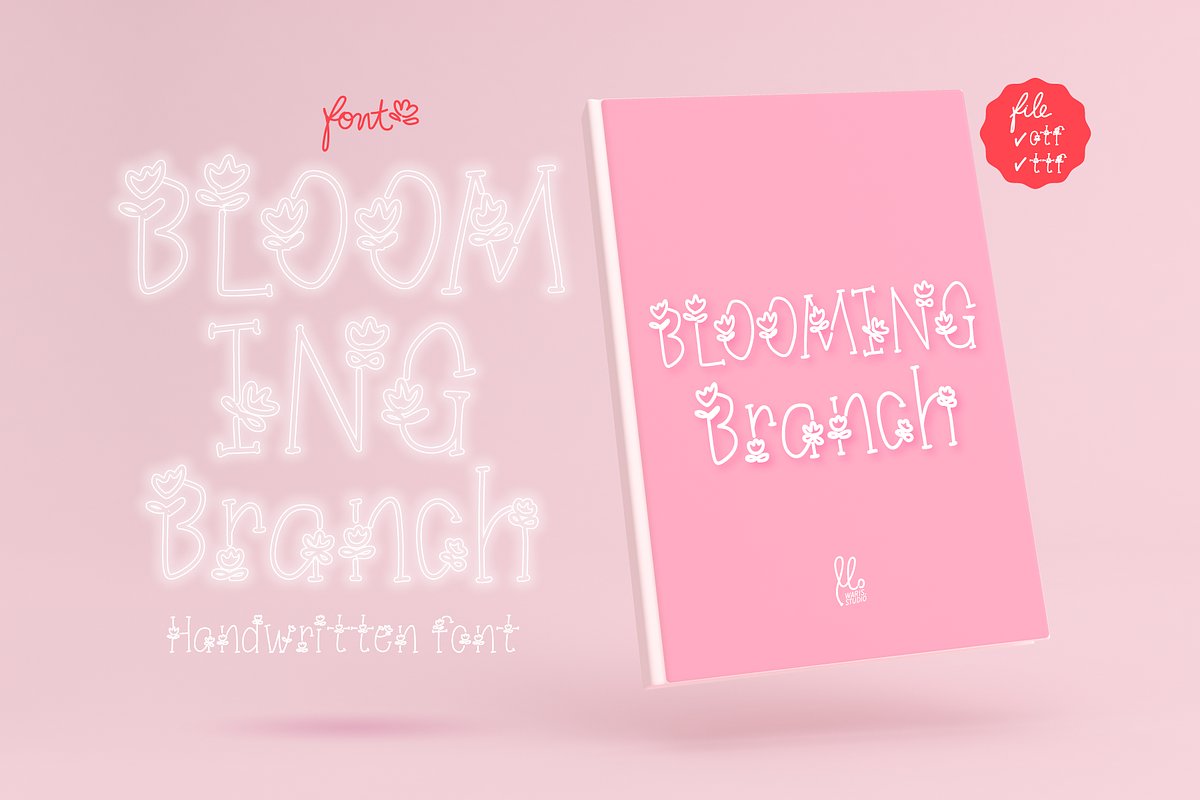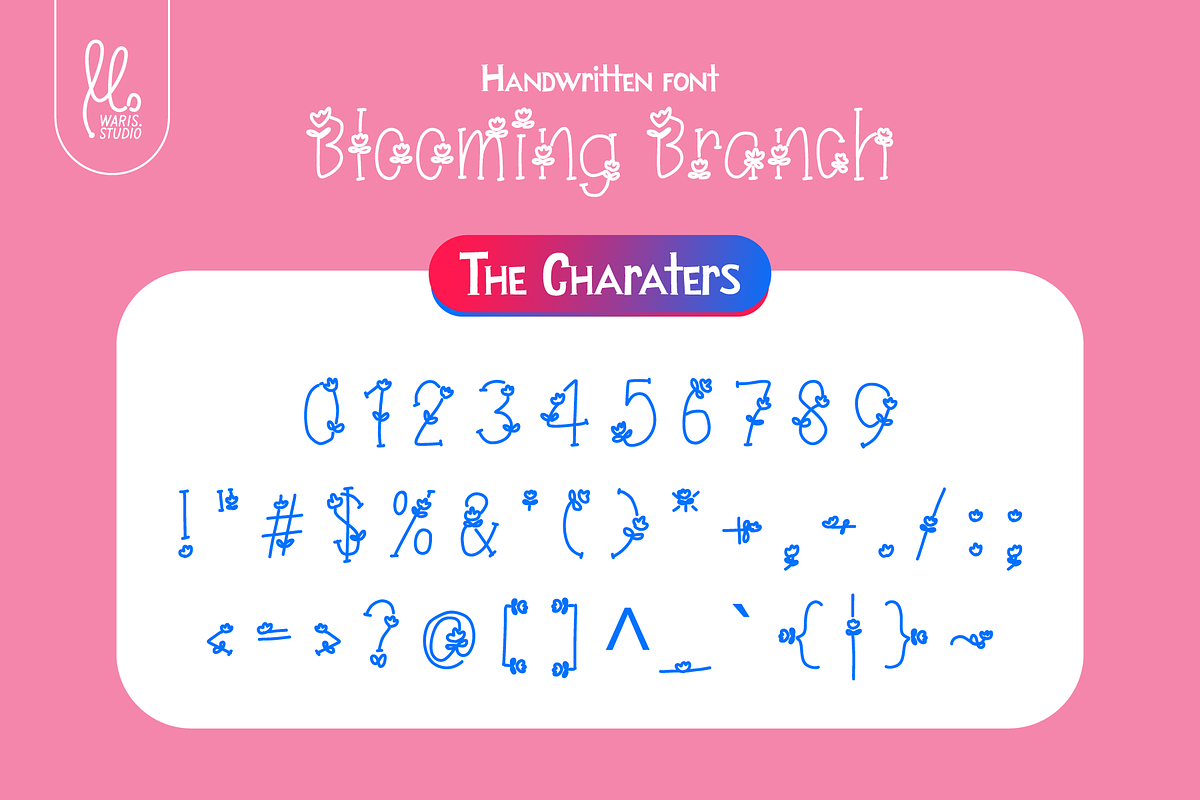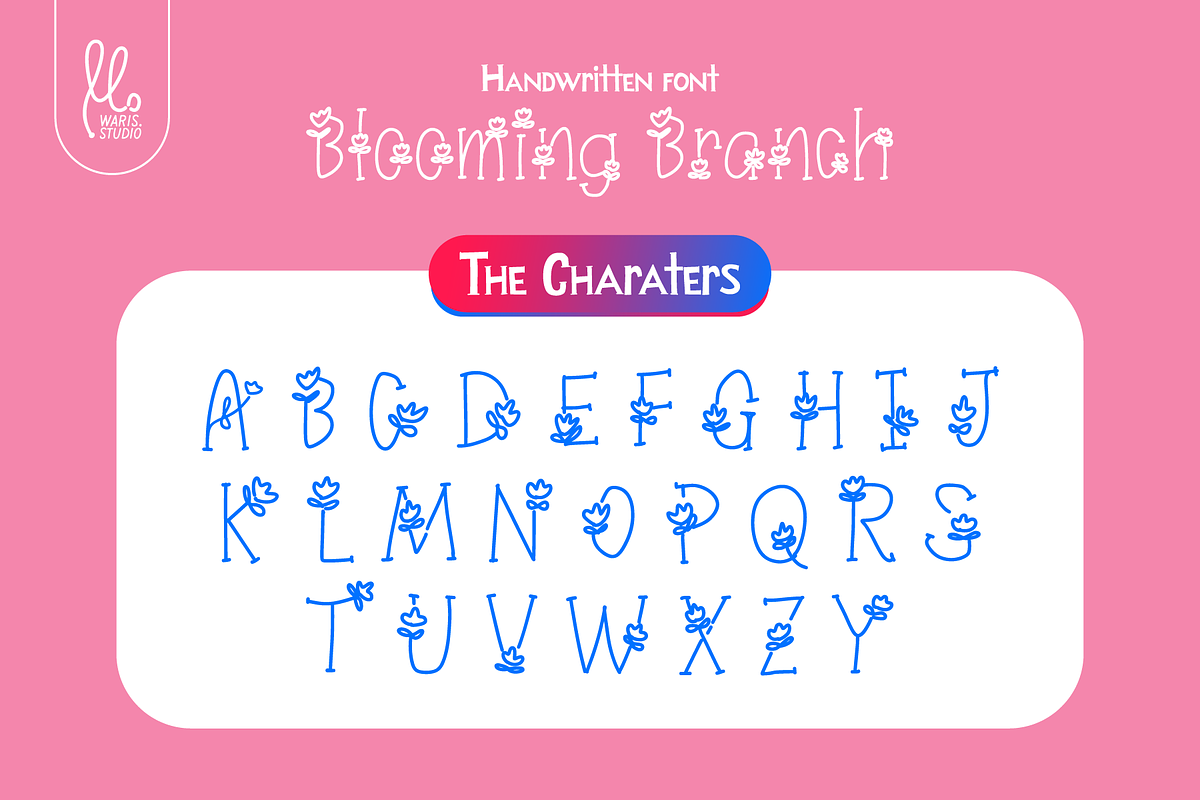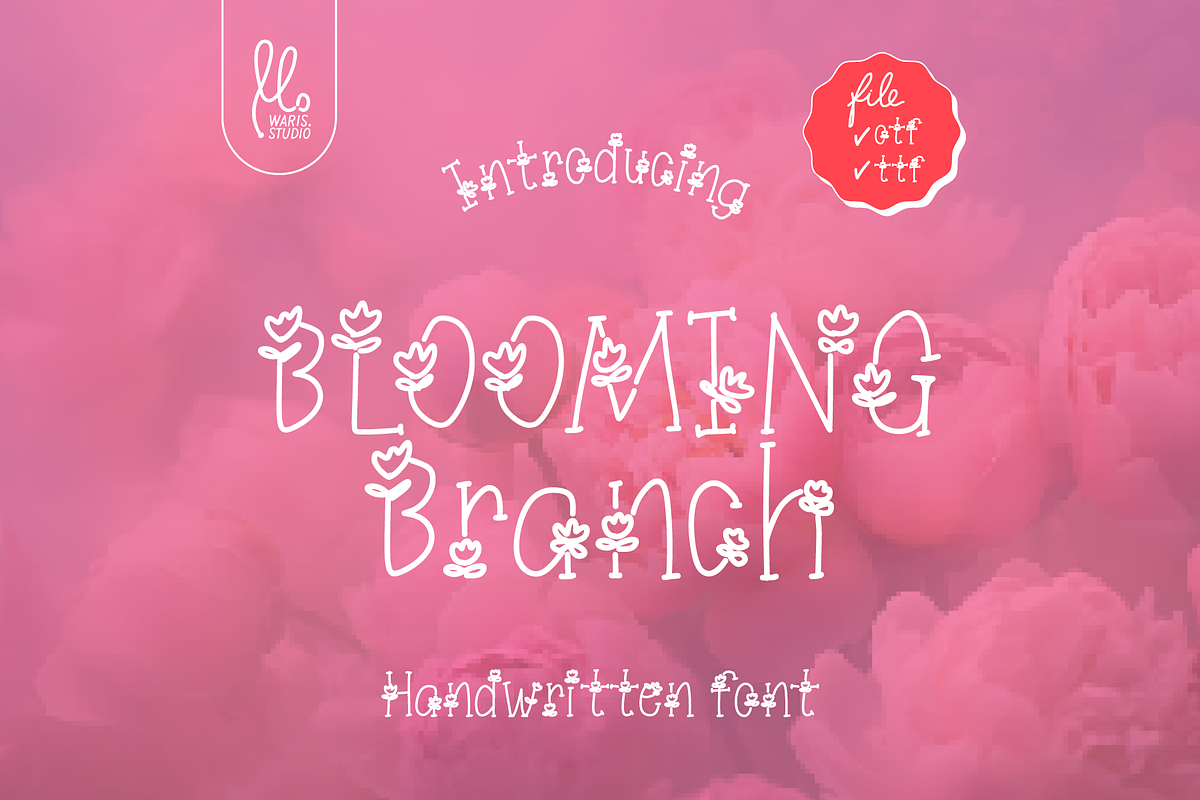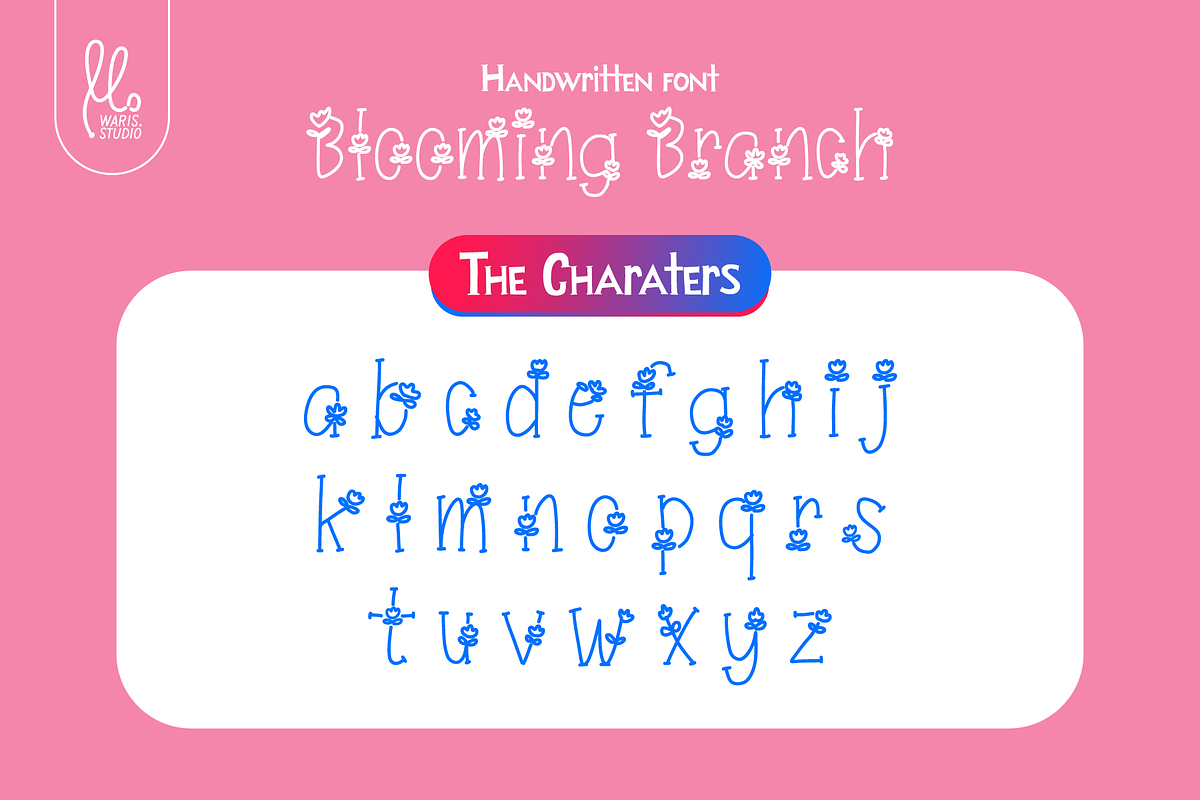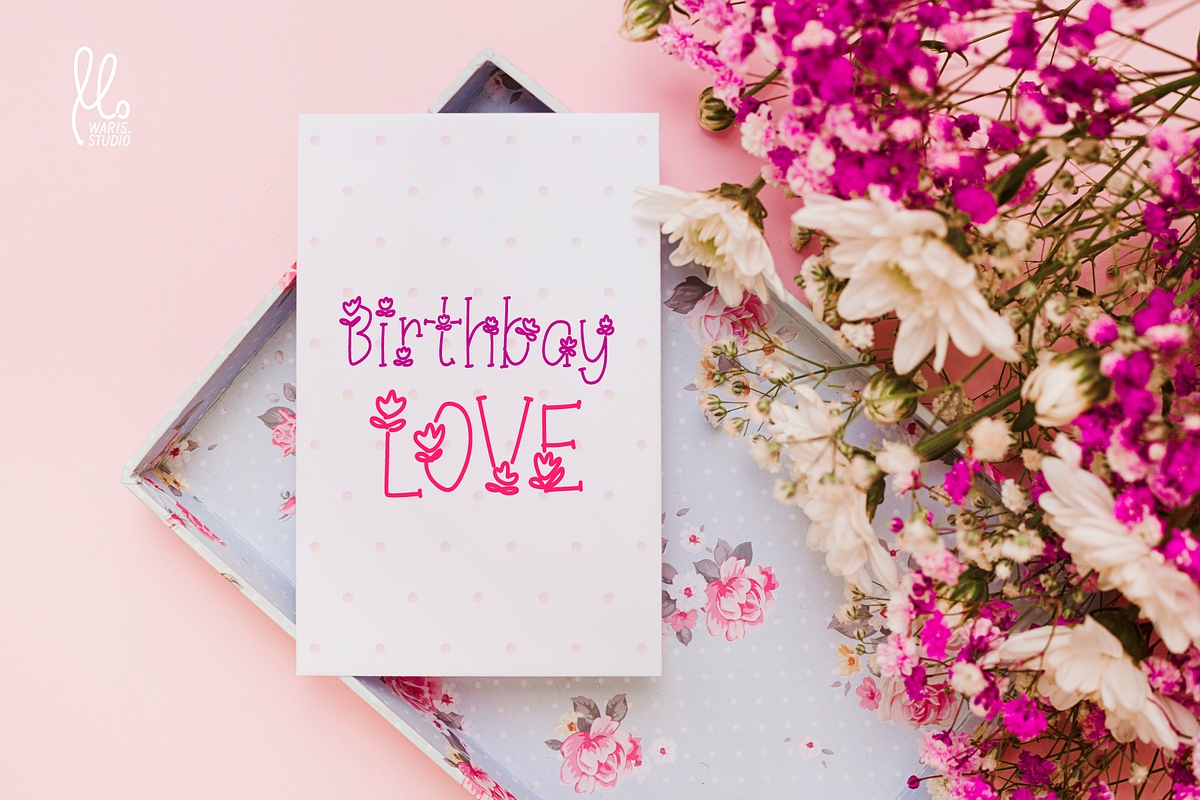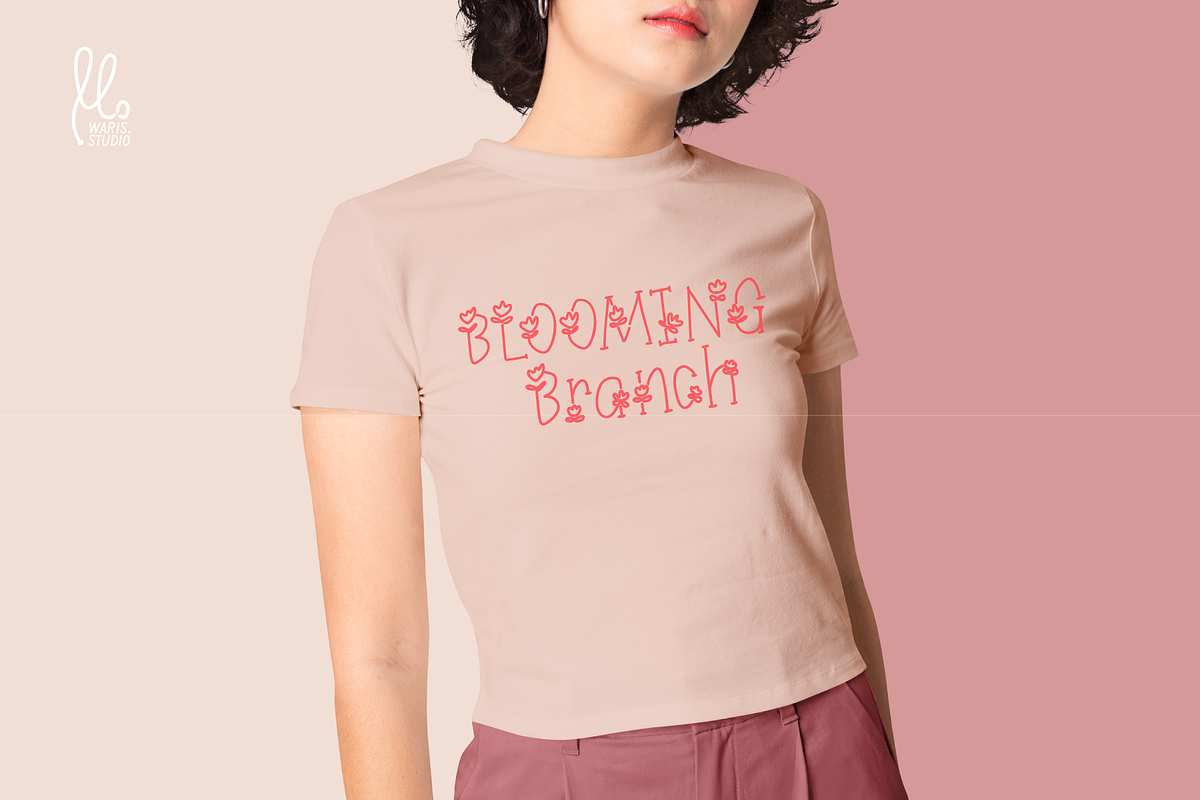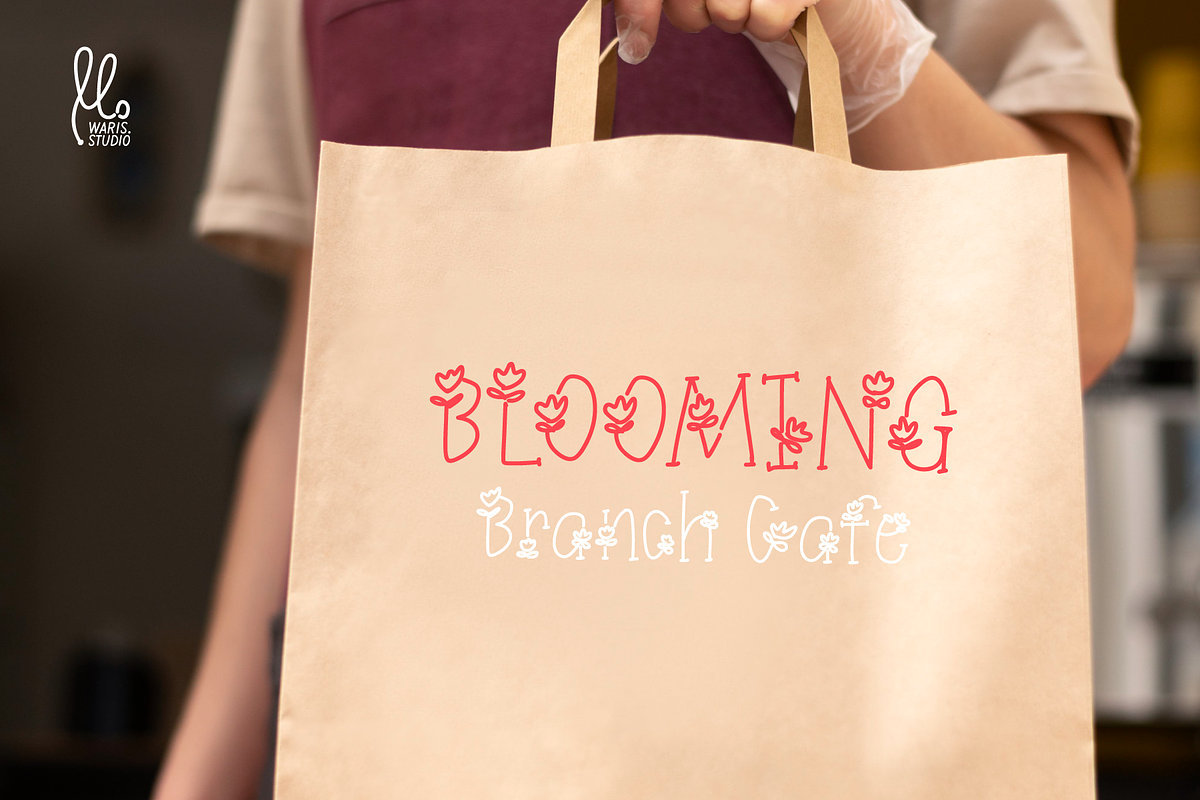
Blooming Branch Handwritten
Blooming Branch is more than just a font; it's an embodiment of warmth, vibrancy, and a friendly touch. With its unique design, gracefully flowing lines, and delicate floral details, this font possesses an irresistible charm that will make your work unforgettable.
✨ Why Choose Blooming Branch? ✨
Vibrant Design: Infuse freshness and playful character into your work, making it stand out from the crowd. Perfect for logos, invitations, packaging, or social media posts.
Cute & Approachable: Create a warm and inviting atmosphere. Ideal for brands that want to convey gentleness, joy, and creativity.
Versatile Application: Whether for personal projects or commercial endeavors, this font is ready to elevate your designs to a professional level.
Let Blooming Branch be the touch that makes your work flourish and leaves a lasting impression!